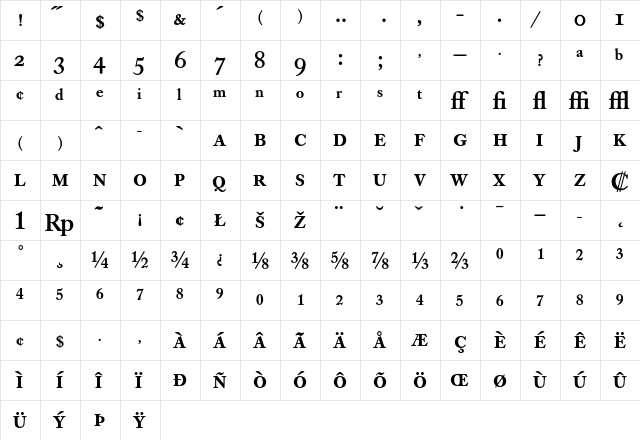
Caslon Book BE Medium Expert Font Preview
Caslon Book BE Medium Expert
Design Context for Caslon Book BE Typeface
Caslon Book BE is a composed and adaptable typeface that performs quietly and consistently across a wide range of design contexts.